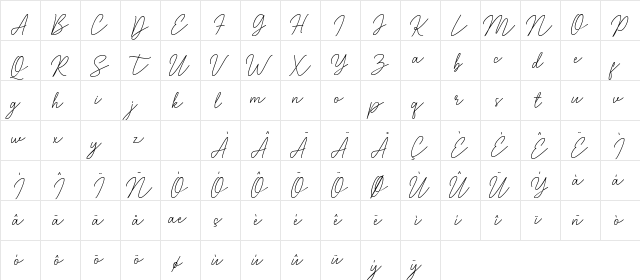
Evelyn Script Regular
| Designer | Echa fajar romadhon |
Evelyn Script flows with the natural rhythm of handwritten lettering, making it ideal for designs that call for warmth and personal expression.
Font Pairing: Combine Evelyn Script with a simple geometric sans for maximum contrast — the tension between flowing curves and clean structure is a classic typographic pairing.
Pro Tip: Use Evelyn Script for short runs of text — names, titles, or taglines. Extended body copy in script faces tires the eye quickly.